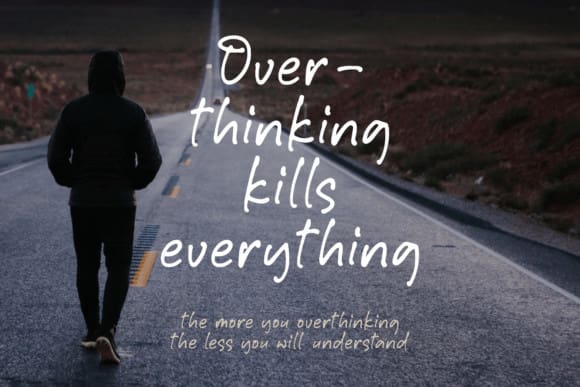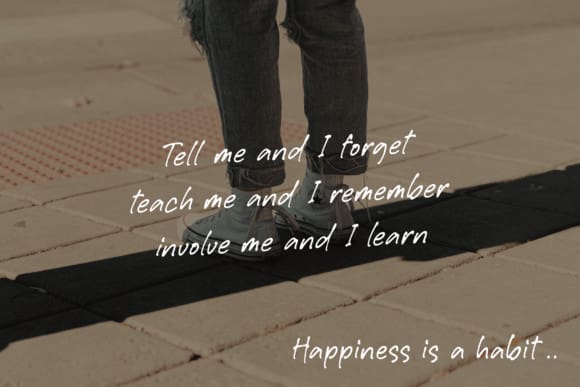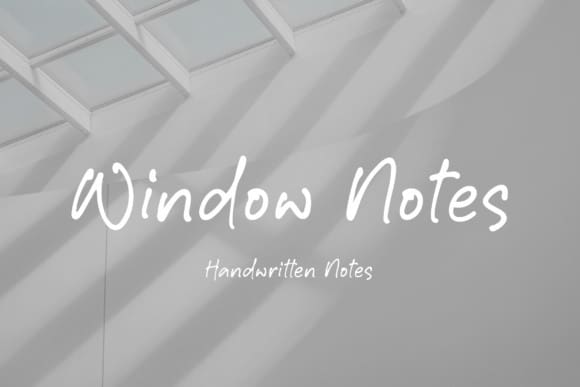
Window Notes Font
Window Notes Font is a friendly and cute handwritten font. Whether you’re using it for crafts, digital design, presentations, or making greeting cards, this font has the potential to become your favorite go-to font, no matter the occasion!